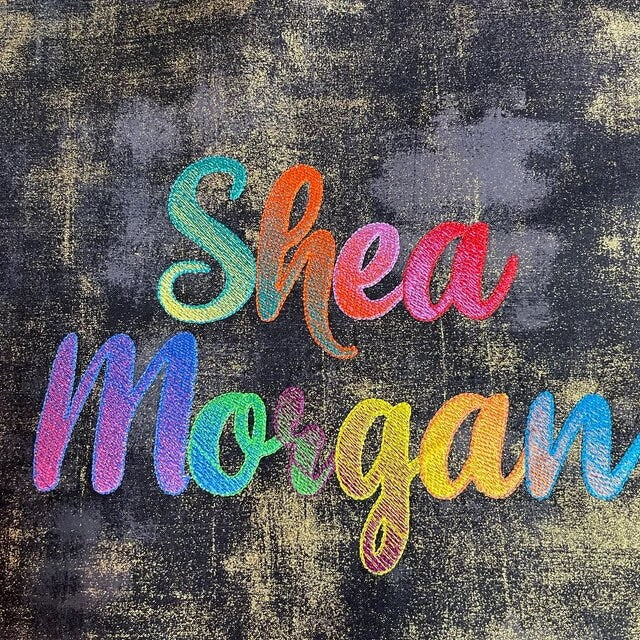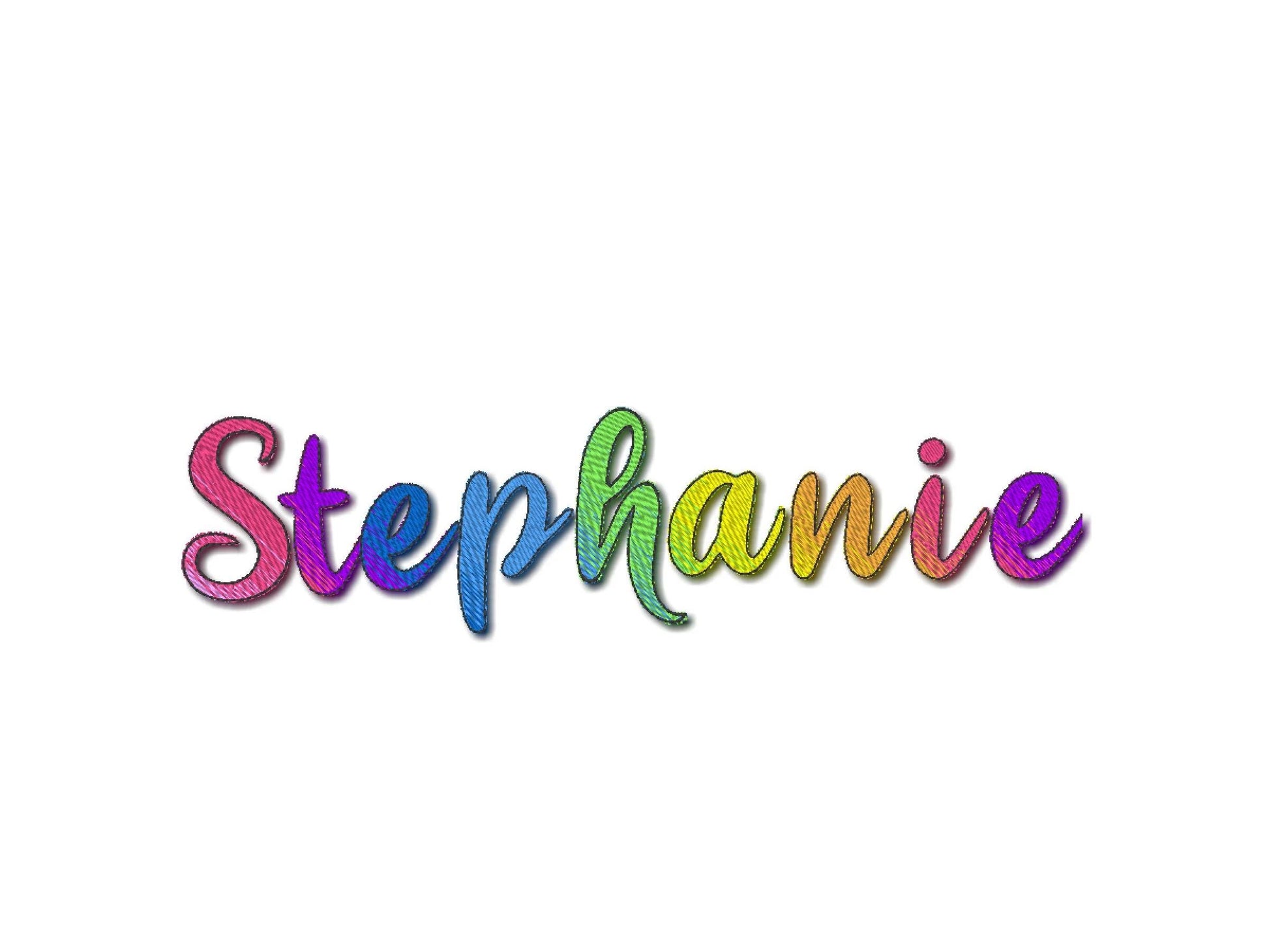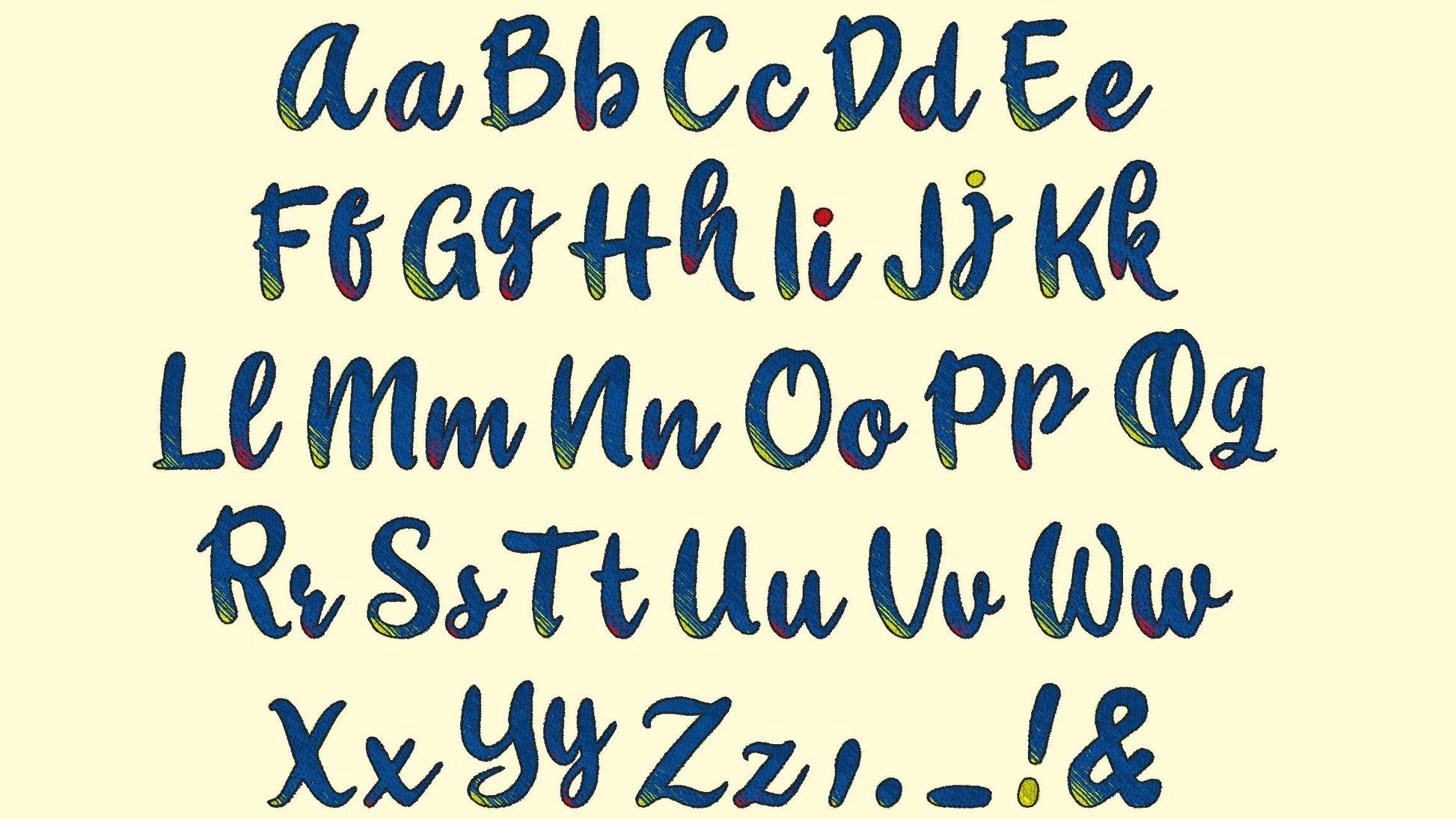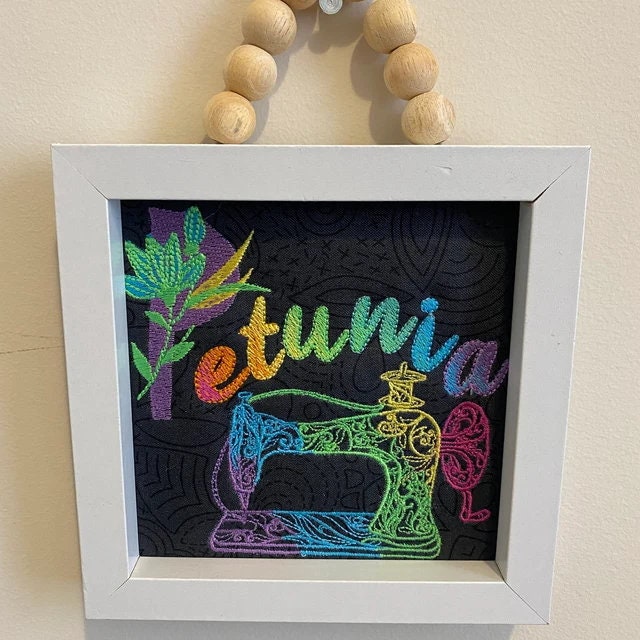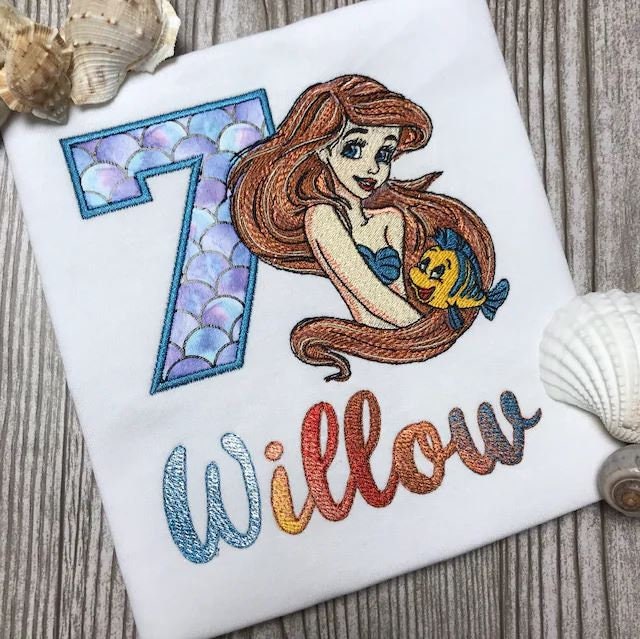
loved these letters and coloring
It stitched out great and I highly recommend it.
Super schöne Schrift zum sticken!!!
Love it thanks for the great deal Stitched out perfect
Designs always stich out beautifully
Awesome embroidery ! This font embroiders out very nicely :) Will purchase from this seller again!!!
It is a really great design to use and turns out really well except for the stitching around the letters. It is off a little. I was able to do the letters without the final stitching around and it turned out beautiful.
It stitched out very nicley
One of my favorites! Stitches out perfectly
Stitched out beautifully! I’ll be using this for many things
Stitches beautiful
Perfect and amazing! 🤩 I love it! 🥰
Love how this stitched out!
Loved this font, stitched out beautifully
I loved this. It was just what I was looking for.
I give 5 stars. Good come out of the stiches
Turned out so cute! Very well digitized!
J'aime beaucoup, je n'ai pas mis des couleurs assez contrastées, mais le dégradé est bien là
Loving this font! So fun to play around with different color combinations.
Love the gradient effect!! Now I need them all!
I LOVE this design. It stitched out perfectly!!
Great font, even better with BX !
Hands down my favorite Font. It is so much fun and adds a “Pop” to my designs. Love it!
This is now my favorite embroidery font in my collection! It stitches out beautifully!
Love, love, love this font. Used it for names on hooded towels.
Stitched out great! I'll definitely be using it again in the future ❤️
I love this font!!!! So awesome!
Absolutely in live with ombre embroidery!